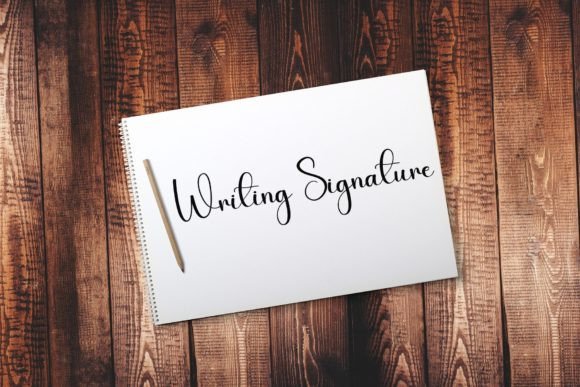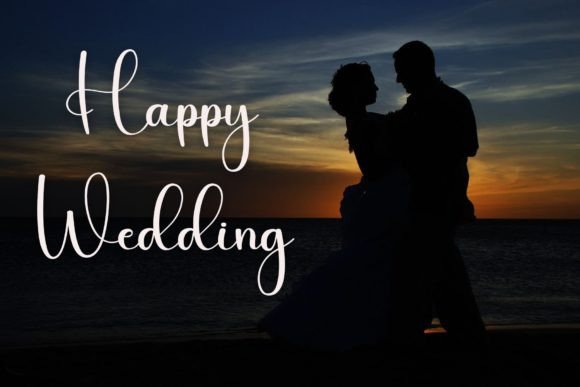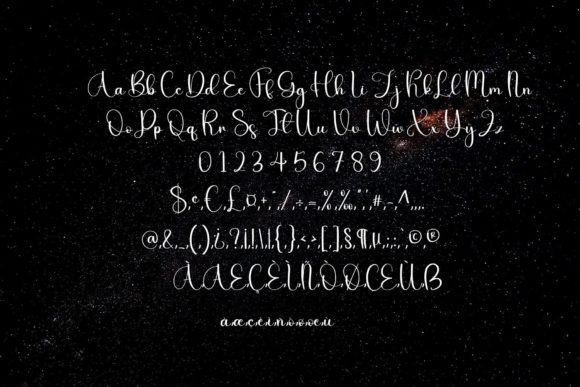
Elevate Your Designs with the Elegance of Calligraphy Fonts
Calligraphy is a flowing handwritten font that exudes an air of elegance and sophistication. Characterized by its fluid strokes and harmonious curves, calligraphy fonts have been a favorite among designers and crafters for centuries. With its incredibly distinct and timeless style, calligraphy fonts can add a touch of luxury and refinement to any project. In this article, we’ll delve into the world of calligraphy fonts, exploring their history, characteristics, and uses, as well as provide tips on how to incorporate them into your designs.
A Brief History of Calligraphy
Calligraphy has its roots in ancient civilizations, where scribes used elaborate lettering to record important documents and literary works. Over the centuries, calligraphy evolved and spread across the globe, influenced by various cultures and artistic movements. From the intricate copperplate scripts of the Renaissance to the bold brush scripts of East Asia, calligraphy has played a significant role in the development of art and design.
Characteristics of Calligraphy Fonts
So, what makes calligraphy fonts so unique? Here are some key characteristics:
- Fluid strokes: Calligraphy fonts are known for their smooth, flowing strokes that give them a sense of movement and energy.
- Elegant letterforms: Calligraphy fonts feature beautifully crafted letterforms with intricate details and ornaments.
- Variations in line width: Calligraphy fonts often exhibit varying line widths, which add to their dynamic and expressive nature.
- Emphasis on beauty: Calligraphy fonts prioritize aesthetics, making them perfect for designs where visual appeal is paramount.
Types of Calligraphy Fonts
There are numerous types of calligraphy fonts, each with its own distinct style and flair. Some popular varieties include:
- Copperplate script: A classic, elegant script with delicate strokes and intricate details.
- Brush script: A bold, expressive script with a focus on gestural strokes and fluid movements.
- Spencerian script: A flowing, ornate script with intricate connections and flourishes.
- Modern calligraphy: A contemporary take on traditional calligraphy, often featuring bold lines and innovative letterforms.
Using Calligraphy Fonts in Your Designs
So, how can you incorporate calligraphy fonts into your designs? Here are some ideas:
- Wedding invitations: Add a touch of romance and elegance to your wedding invitations with a beautiful calligraphy font.
- Logos and branding: Use a calligraphy font to create a sophisticated and memorable logo for your business or brand.
- Stationery and greeting cards: Add a personal touch to your stationery and greeting cards with a elegant calligraphy font.
- Packaging and advertising: Use a bold and eye-catching calligraphy font to make your packaging and advertising stand out.
Tips for Working with Calligraphy Fonts
Here are some tips to keep in mind when working with calligraphy fonts:
- Choose the right font: Select a calligraphy font that fits your project’s tone and style.
- Use it sparingly: Calligraphy fonts can be overwhelming if overused. Balance them with simpler fonts to create visual interest.
- Pay attention to legibility: Ensure that your calligraphy font is legible, especially for body text.
- Experiment with colors and textures: Add depth and visual interest to your design by experimenting with different colors and textures.
| Font Name | Calligraphy Font |
Calligraphy fonts offer a world of creative possibilities for designers and crafters. With their elegant touch, timeless style, and incredible versatility, it’s no wonder why calligraphy fonts remain a popular choice for a wide range of projects. Whether you’re looking to add a touch of sophistication to your wedding invitations or create a bold and eye-catching logo, calligraphy fonts are sure to inspire and elevate your designs.